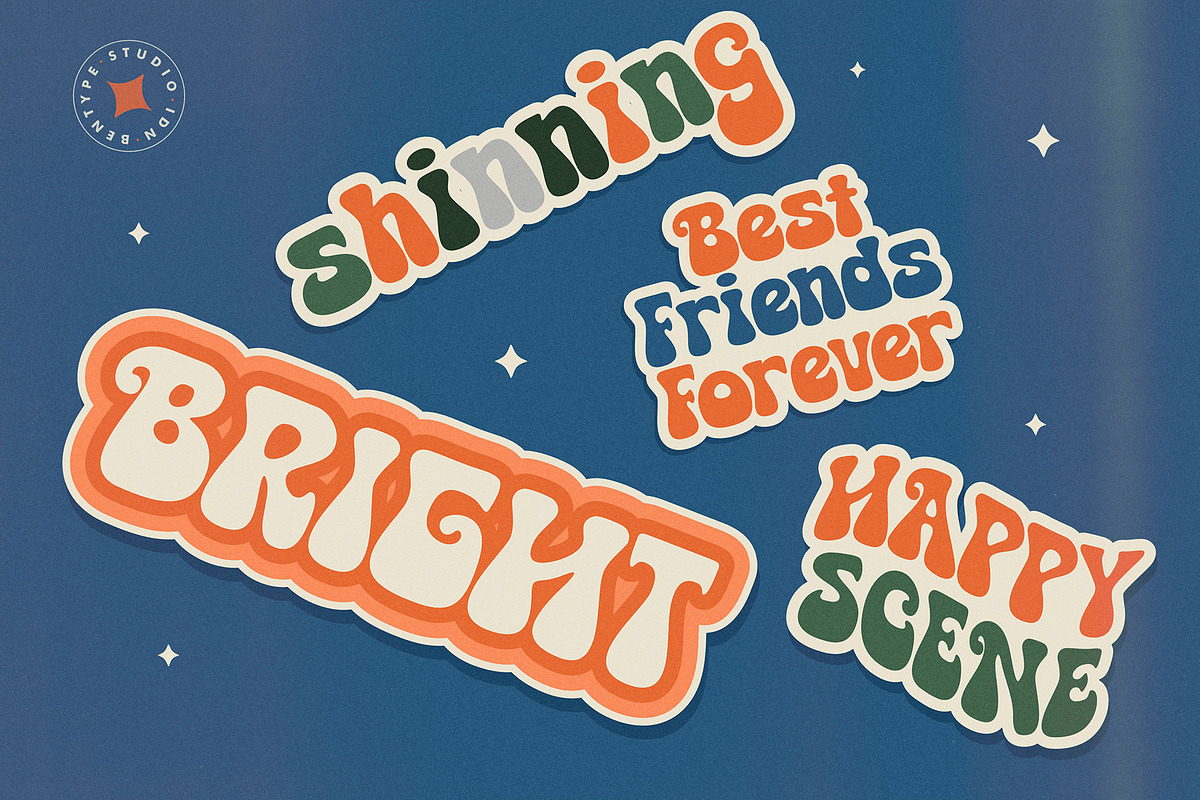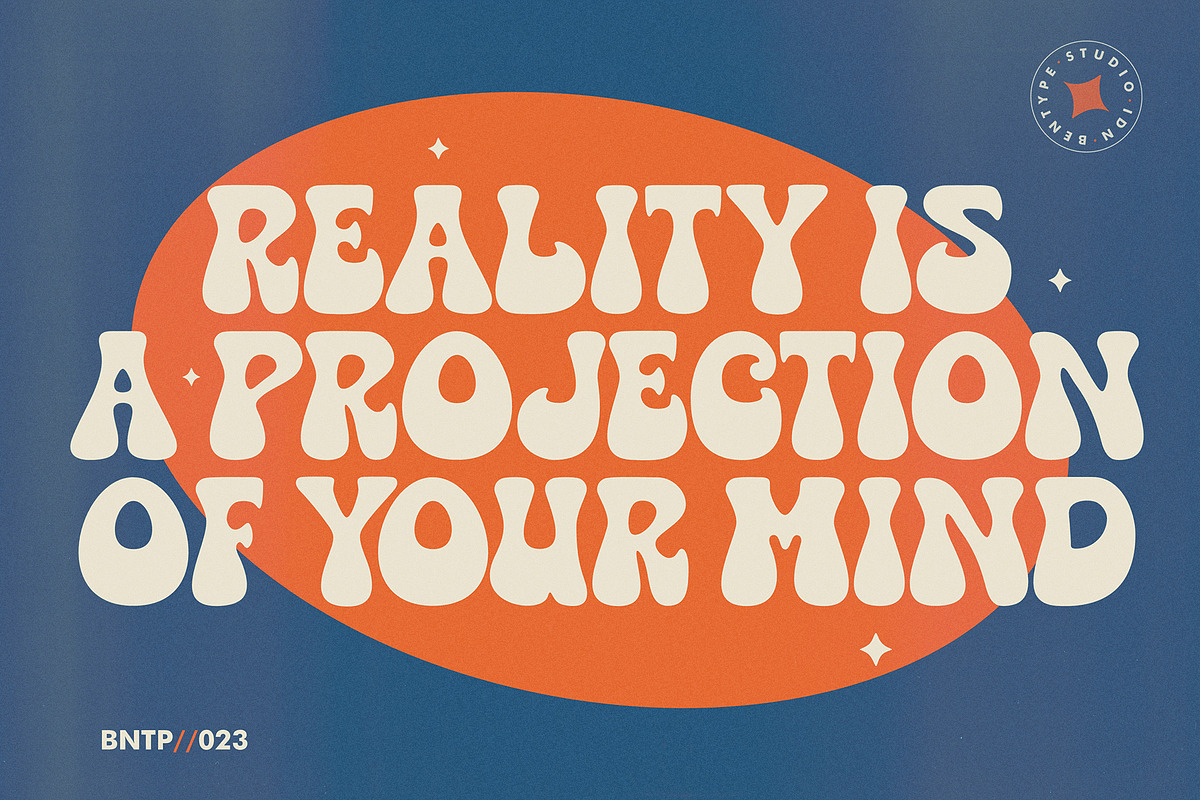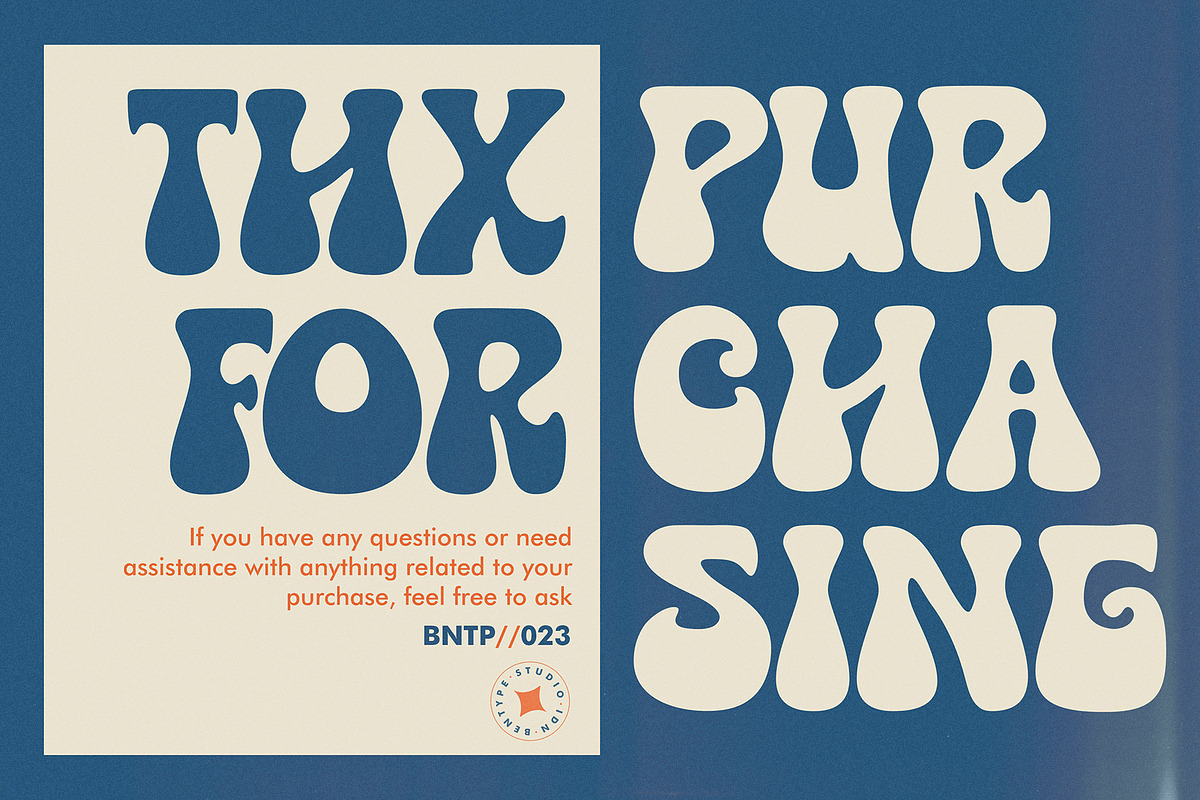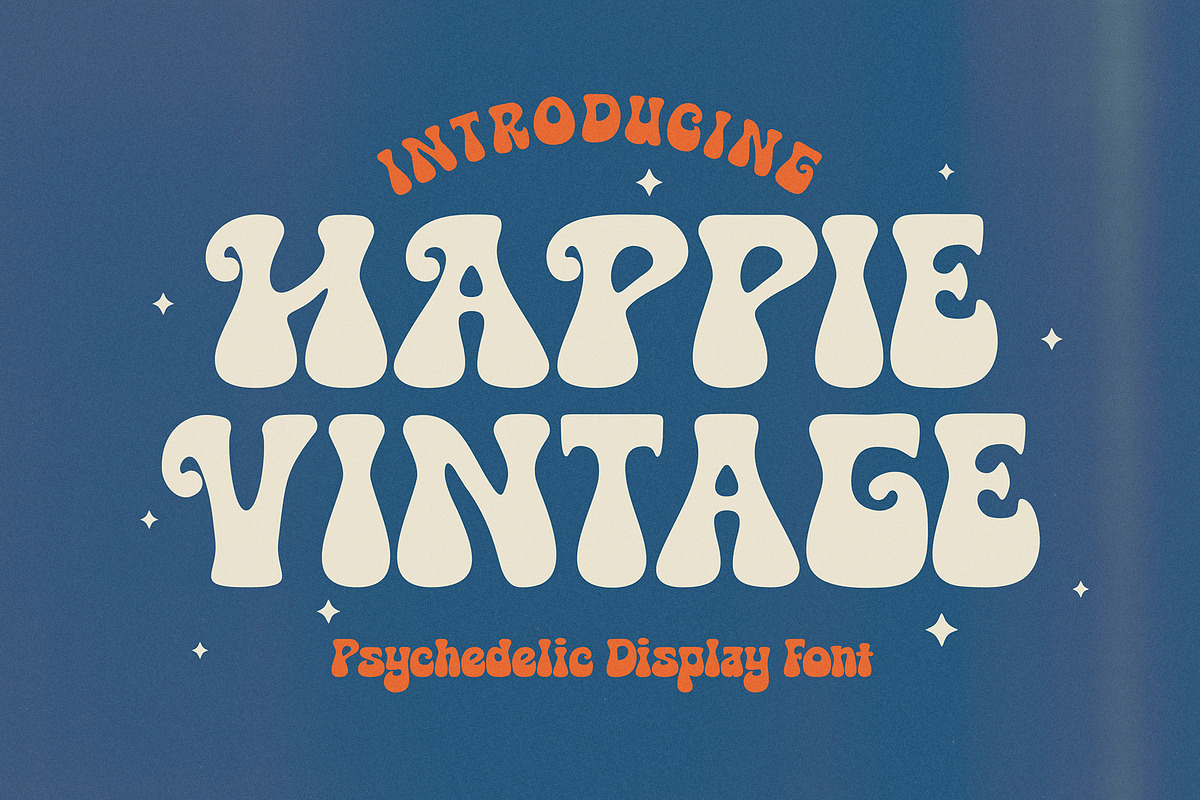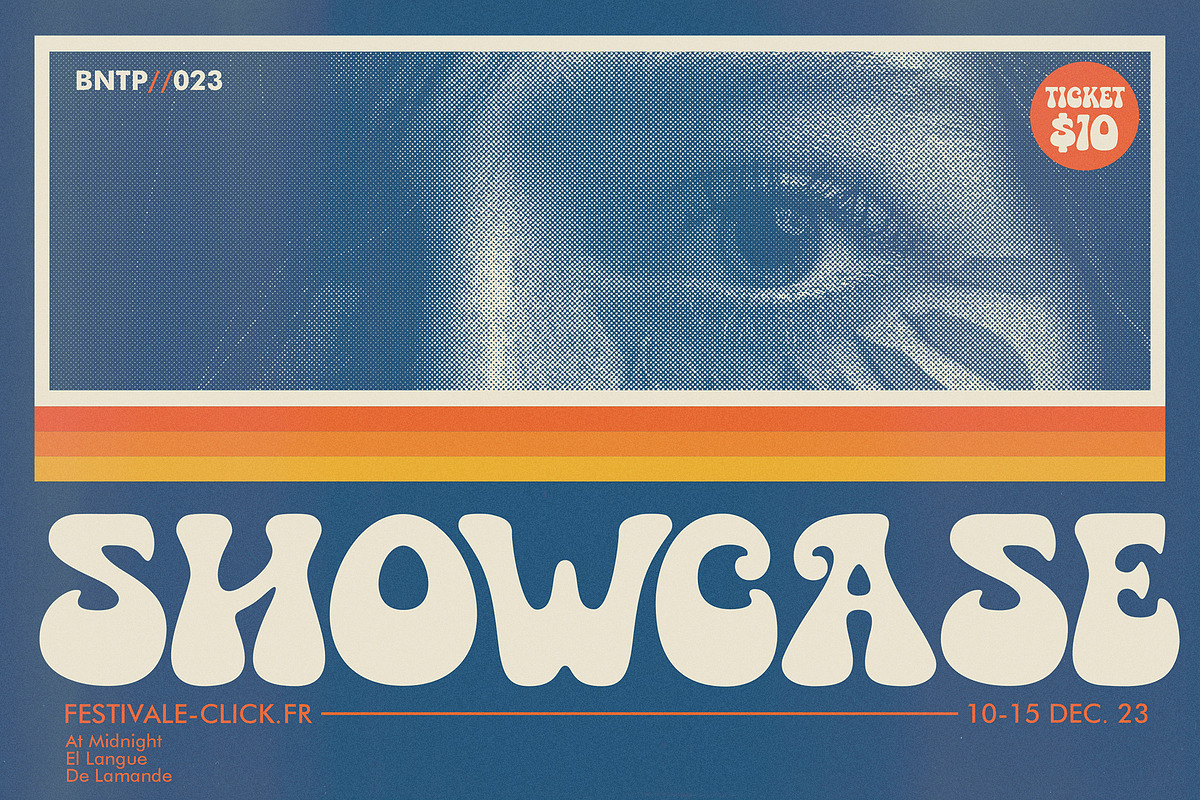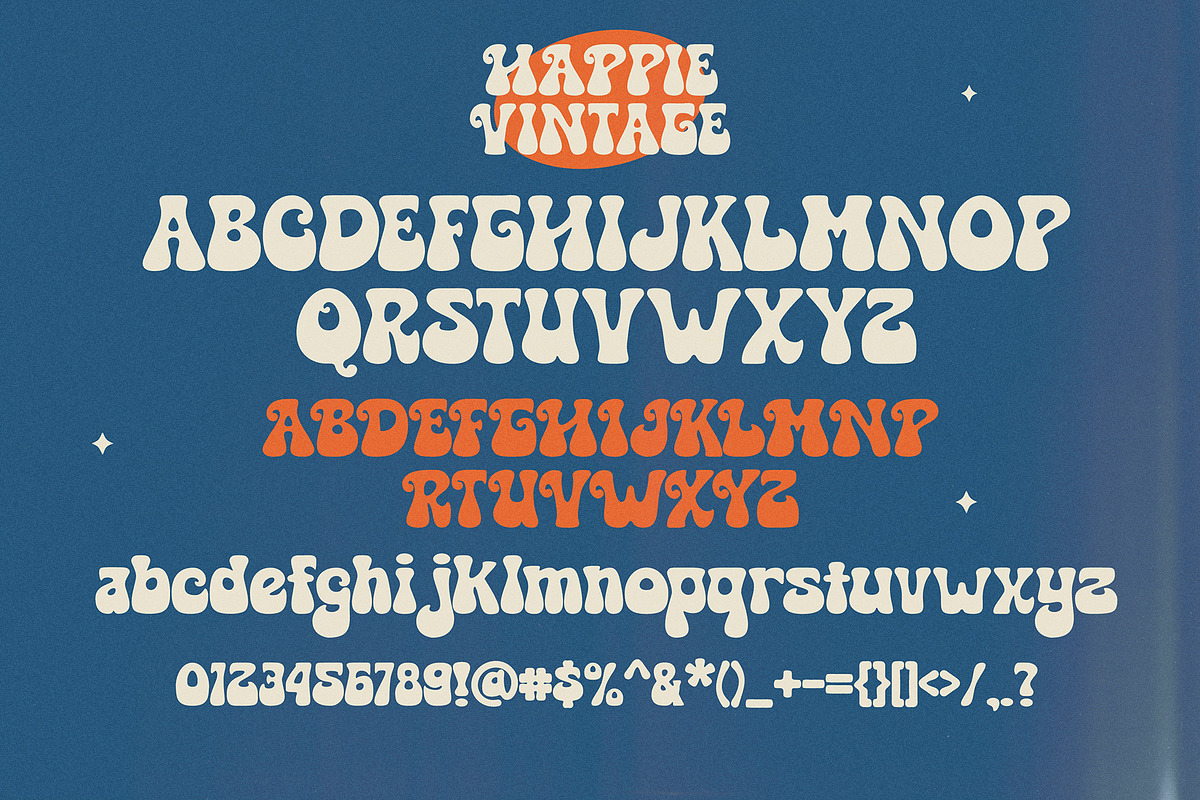
Happie Vintage - Psychedelic Display
HAPPIE VINTAGE is inspired by 70's typefaces with psychedelic touches and groovy vibes. It looks playful and fun. This type will bring you back to retro feel.This font perfectly made to be applied especially in logo, and the other various formal forms such as invitations, labels, logos, magazines, books, greeting / wedding cards, packaging, fashion, make up, stationery, novels, labels or any type of advertising purpose.